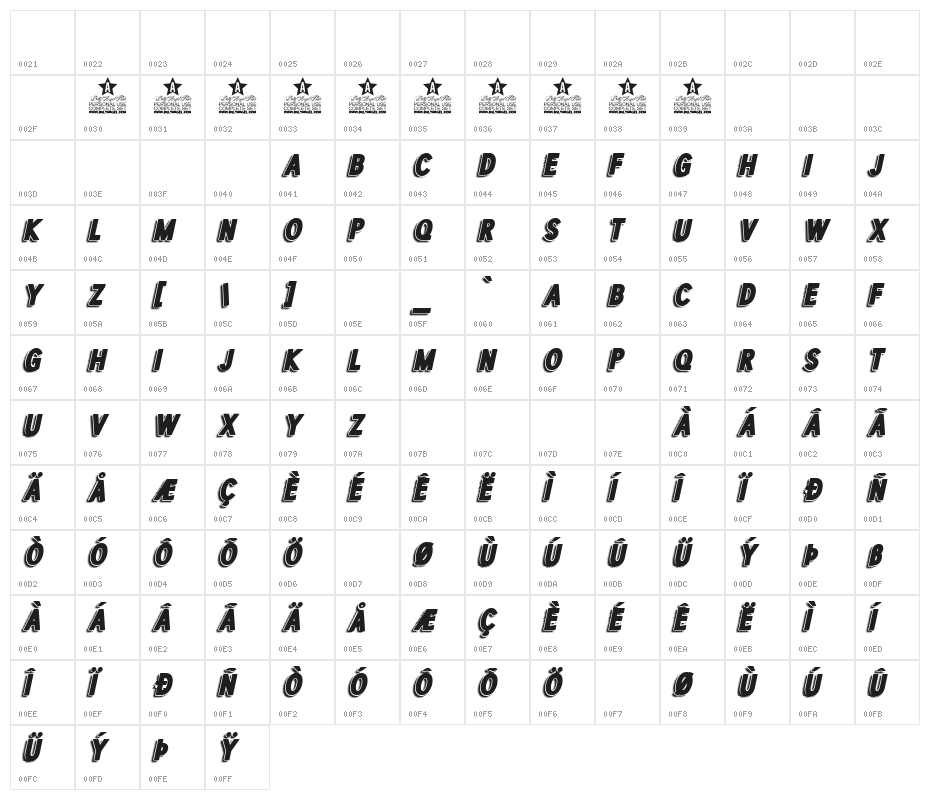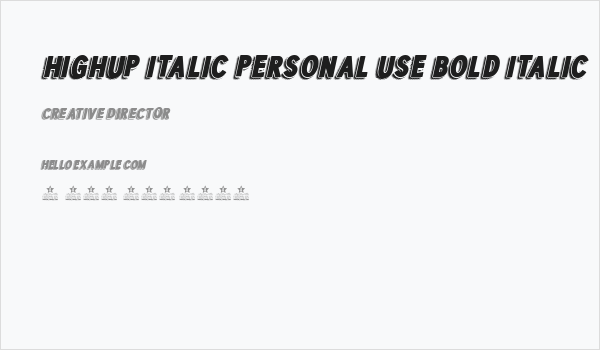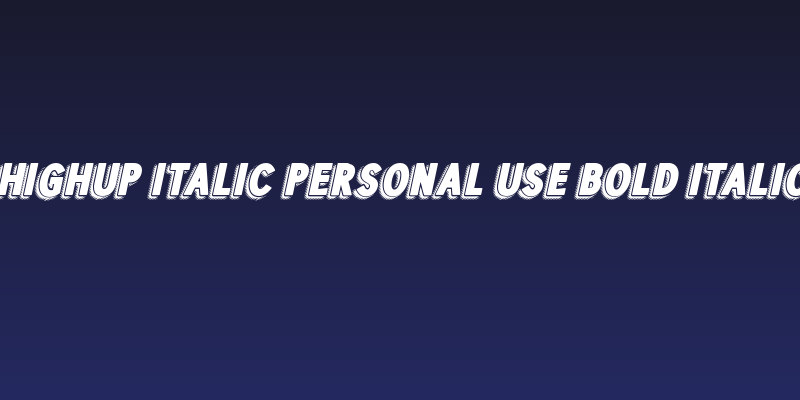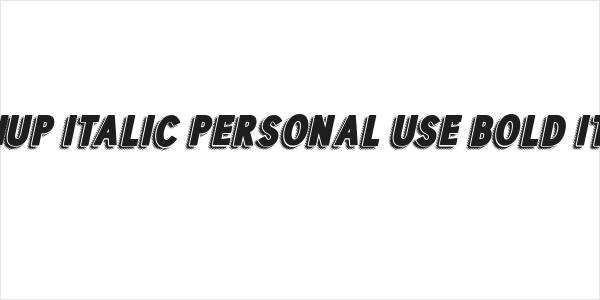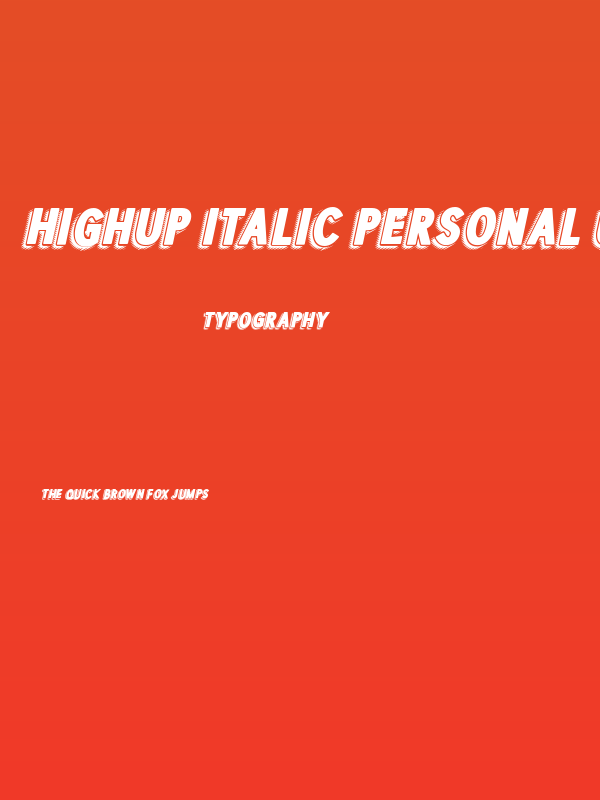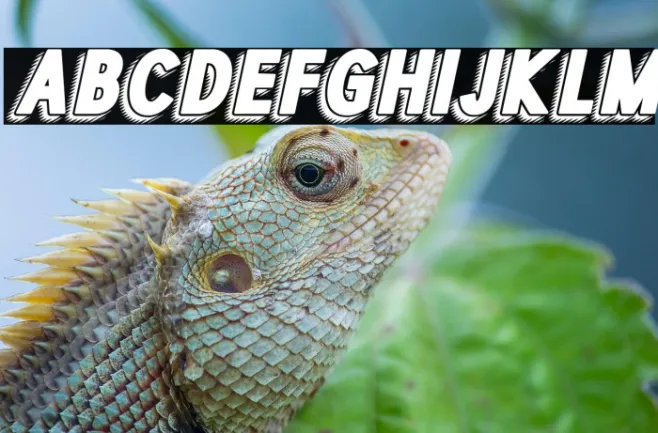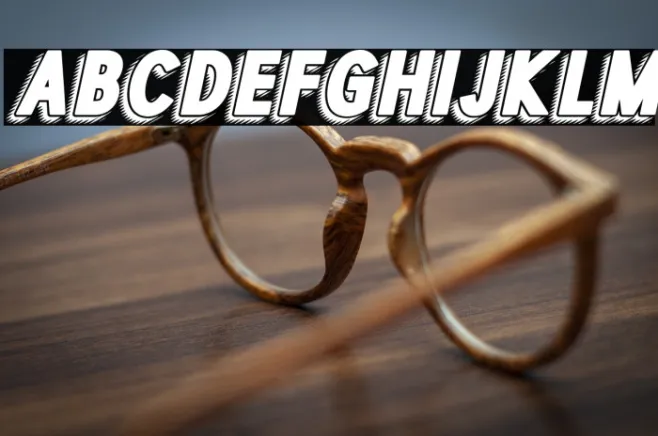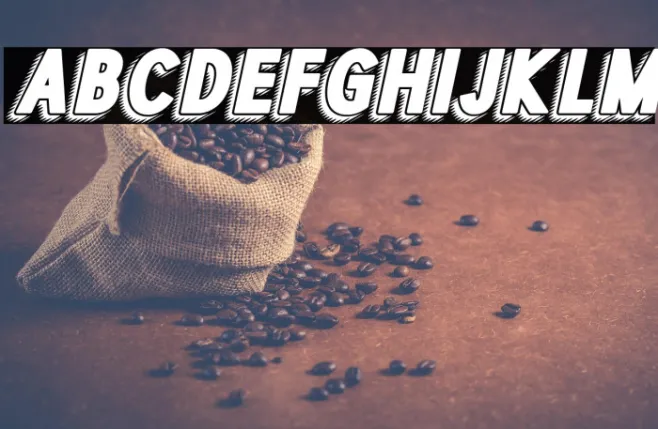
HIGHUP ITALIC PERSONAL USE Bold Italic Font
HIGHUP ITALIC PERSONAL USE Bold Italic Description
This font features a bold and italicized style with a strong, dynamic presence. The letters are slanted, giving a sense of motion and energy. The bold weight enhances its visibility, making it suitable for attention-grabbing designs. The font includes uppercase letters from A to Z, numerals from 0 to 9, and a selection of special characters. The strokes are thick, with a slight shadow effect that adds depth and dimension. This font is ideal for projects that require a bold statement or a modern, edgy look.
| Proposed Projects | Ideal for posters, headlines, logos, and branding materials that require a strong visual impact. |